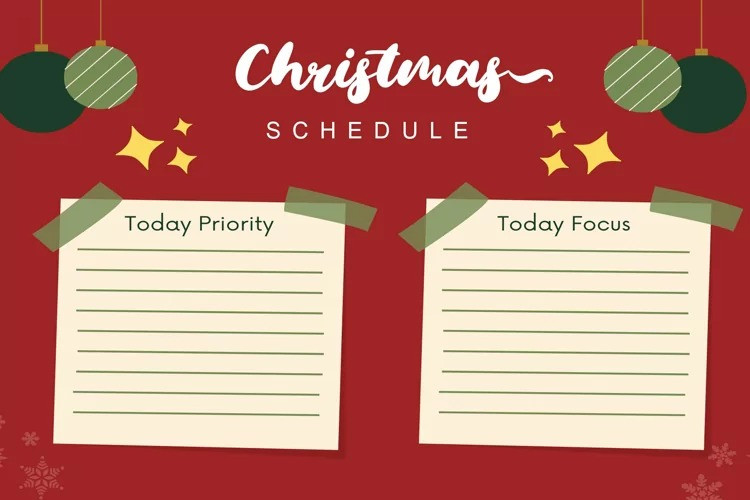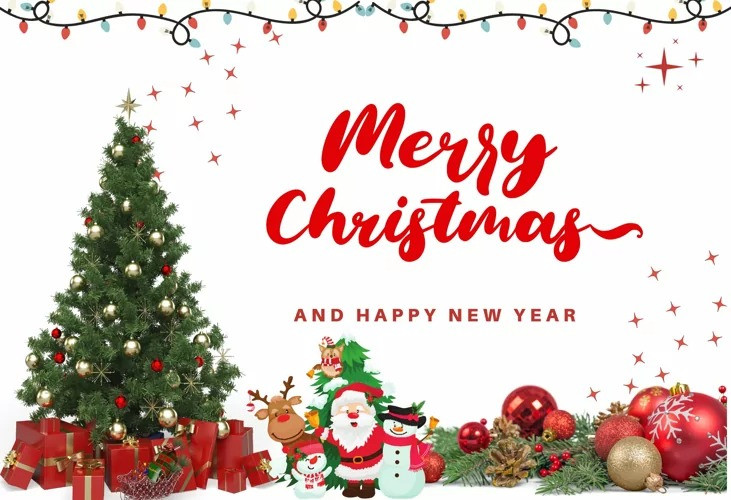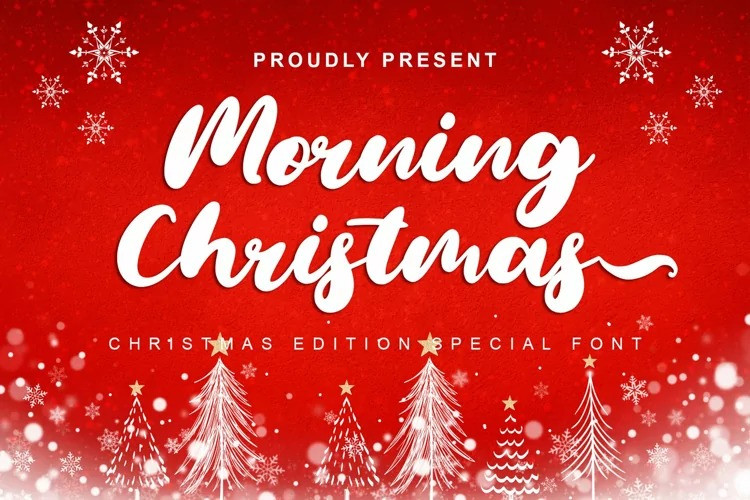
Morning Christmas Typeface
Morning Christmas Script Font is a dazzling and timeless handwritten font. It is the best choice for your Christmas season. This font is PUA encoded which means you can access all the glyphs and sweeps easily!